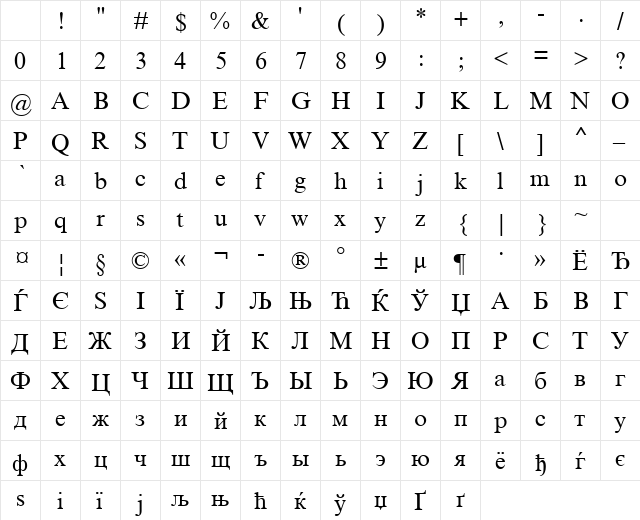
Times New Roman Cyr Regular
Design Context for Times New Roman Cyr
Times New Roman Cyr is a composed and adaptable typeface that performs quietly and consistently across a wide range of design contexts.
Pro Tip: Use Times New Roman Cyr in both headline and body roles to test its range before committing to a single application.